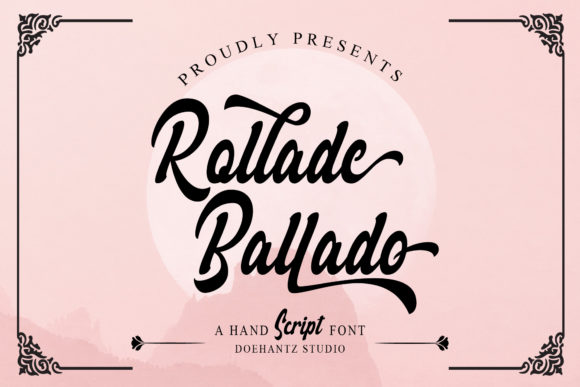
Rollade Ballado: A Script Typeface for Impactful Visual Content
When you build campaigns day after day, you learn that typography is not decoration. It is infrastructure. The right font sets the tone, frames the message, and controls how fast a viewer decides to stop scrolling or keep moving. Rollade Ballado is a hand script font that brings elegant swashes and connected ligatures into that equation. It gives marketers, social media designers, and content creators a tool that feels personal without losing professional polish. Whether you are designing for Instagram, YouTube thumbnails, email headers, or branded templates, this typeface offers a distinct voice that stands out in crowded feeds.
What Makes Rollade Ballado Different in a Script Amp Library
Rollade Ballado belongs to the Script Amp category, and it carries the hallmarks of a well-crafted script font: fluid letterforms, expressive curves, and natural flow. But what sets it apart is the collection of gorgeous swashes and ligatures built directly into the character set. These features allow you to create variations in word endings, add flourish to capital letters, and give headlines a hand-lettered feel without manually drawing each stroke. The font strikes a balance between readability and ornamentation. It does not sacrifice legibility for style, which matters when you are working with short text that needs to communicate fast.
The personality of Rollade Ballado leans warm, confident, and slightly romantic. It works well for brands that want to communicate approachability, creativity, or premium quality. Think product packaging that needs a handwritten touch, Instagram captions rendered as graphic overlays, or a launch announcement that asks for elegance without stiffness. This font does not try to be neutral. It makes a statement, and that is exactly what you need when every pixel competes for attention.
Using Rollade Ballado in Social Media Graphics and Campaign Visuals
Social media platforms reward content that stops the thumb. Rollade Ballado helps you create that stop because its handcrafted appearance feels human. When you pair it with a clean background or a minimal layout, the font becomes the focal point. For Instagram posts, consider using it for the primary headline or callout text. A single line like Spring Collection Now Available set in Rollade Ballado with a swash on the capital S feels curated and intentional. It tells the audience that the brand pays attention to detail.
For YouTube thumbnails, short headlines in Rollade Ballado can differentiate your content from competitors who rely on generic bold sans serifs. A video title like The Creative Process rendered in this script font adds a layer of personality that invites clicks. On Pinterest, where aesthetics drive discovery, Rollade Ballado works well for quote pins, tutorial titles, and save-worthy graphics. The ligatures ensure that letter combinations like Th or Sh join smoothly, so the text does not look disjointed even at smaller sizes.
Email headers and website banners also benefit from the font. A landing page hero section that opens with a warm greeting using Rollade Ballado feels more personal than a standard sans serif header. It signals that the brand values connection, which can improve open rates and engagement metrics when used consistently.
Building Visual Hierarchy and Readability in Digital Content
One mistake marketers make with script fonts is using them for everything. Rollade Ballado performs best when you treat it as a display font reserved for headlines, quotes, callouts, and decorative accents. It gives you the visual punch needed to establish hierarchy. Pair it with a clean sans serif font for body text, captions, and smaller information. This contrast lets the script breathe while keeping the overall layout readable.
For campaign graphics, apply Rollade Ballado at larger sizes where the swashes and ligatures have room to show. A sale announcement like 40% Off Everything becomes more compelling when the headline uses the font, while the fine print stays in a simple sans serif. This approach maintains clarity for the critical message and avoids overwhelming the viewer with too much ornamentation.
Readability on mobile devices matters more than ever. Rollade Ballado holds up well in headlines and medium-sized text, but avoid using it for long paragraphs or small labels. Test your designs at typical mobile preview sizes before finalizing. The font works best when you give it enough space and contrast against backgrounds. A light background with dark text or a dark background with white text keeps the swashes sharp and the reading smooth.
How Rollade Ballado Influences Audience Perception
First impressions in digital marketing often happen within seconds. The typeface you choose shapes how viewers perceive your brand before they read a single word. Rollade Ballado communicates craftsmanship, warmth, and intentional design. It suggests that the brand behind the content cares about aesthetics and details. This perception is especially valuable for product launches, seasonal promotions, and personal branding projects.